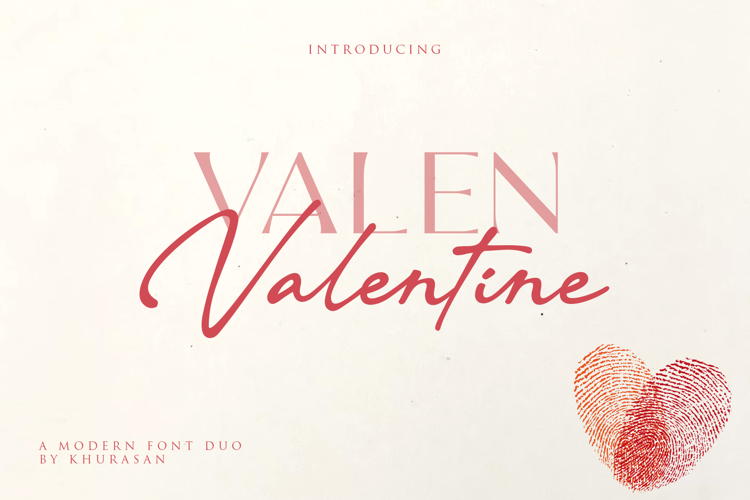
Valen Valentine Font Duo
Fall in love with Valen Valentine — a romantic font duo crafted to capture hearts through elegant letterforms.
This enchanting collection pairs a graceful script that flows like handwritten love notes with a clean, modern serif that brings perfect balance and clarity. Together, they create harmonious typography that feels warm, intimate, and utterly unforgettable.
Perfect for wedding invitations, Valentine's Day cards, romantic branding projects, social media quotes, and love-themed packaging designs. Valen Valentine infuses every project with passion and charm that instantly connects with viewers' hearts.